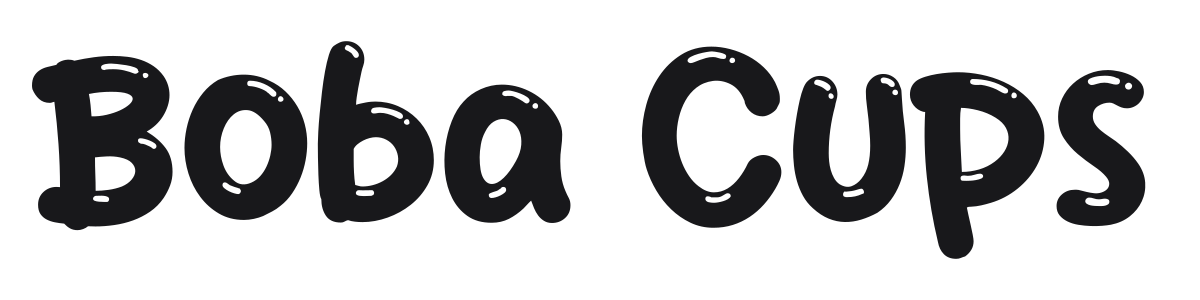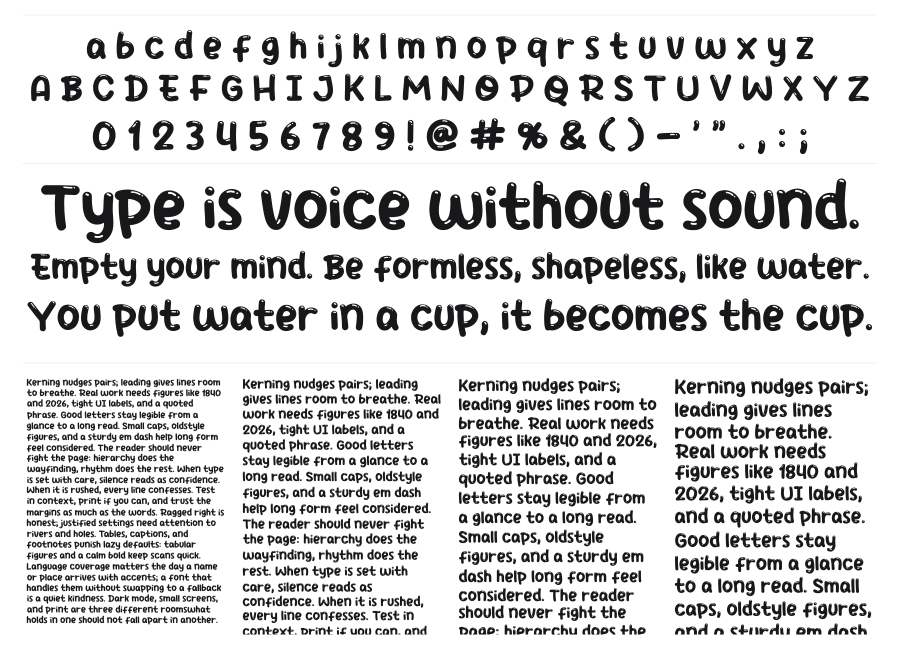
Boba Cups
Boba Cups is a heavy bubble font with thick, inflated strokes and soft rounded terminals that evoke the look of squeezable, blobby lettering. The characters feel like they were drawn with a fat marker and then filled with air. Great for food packaging, children's content, and social media branding where friendliness is the point.